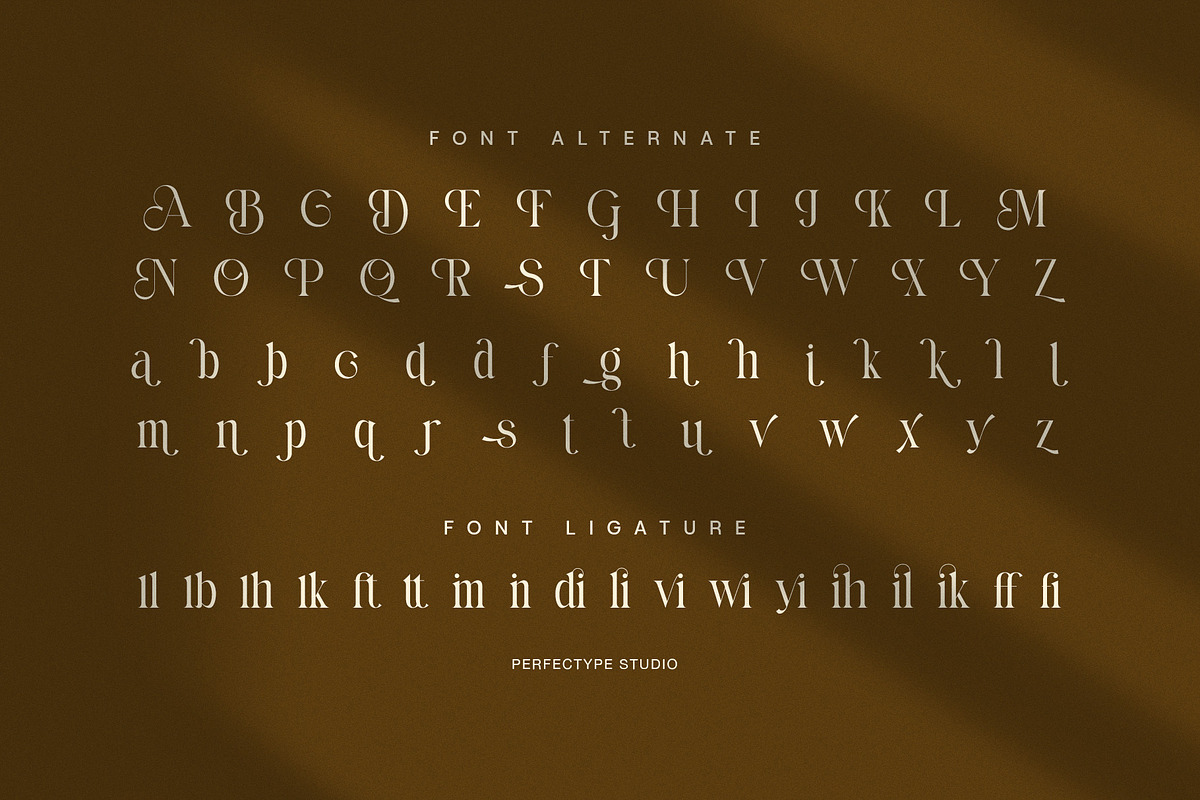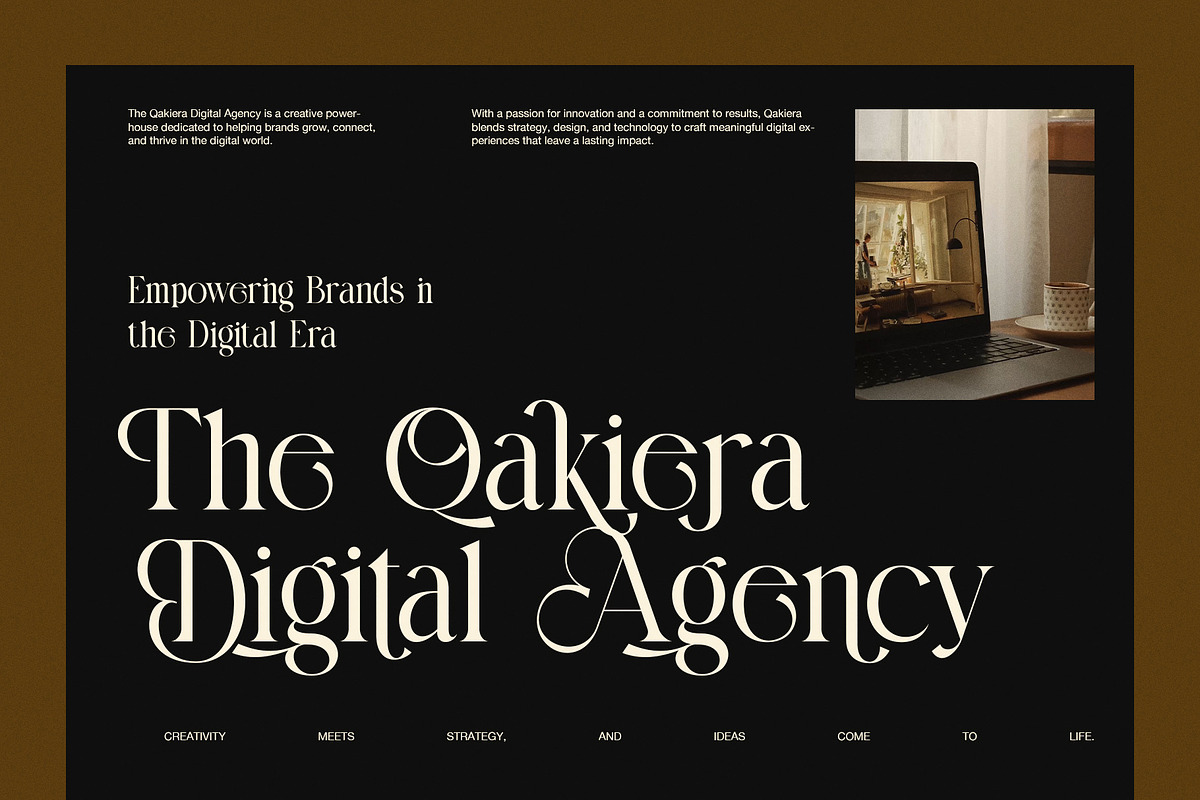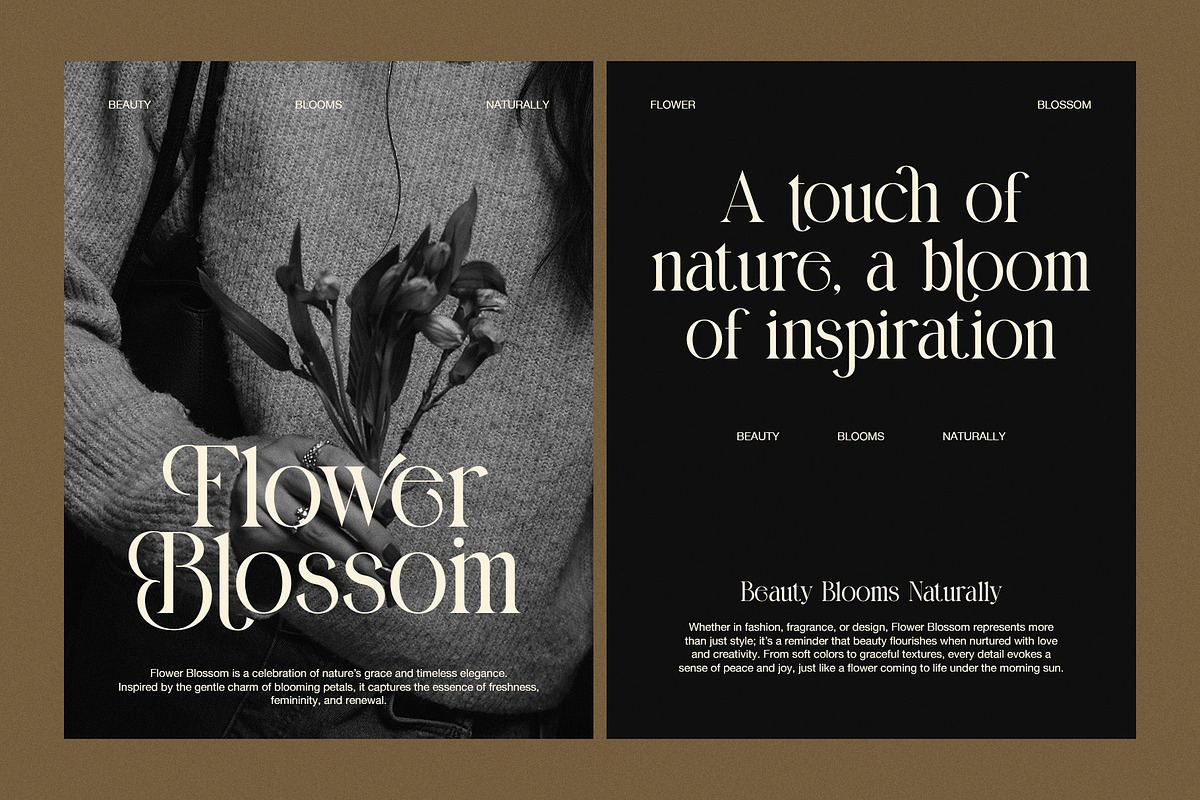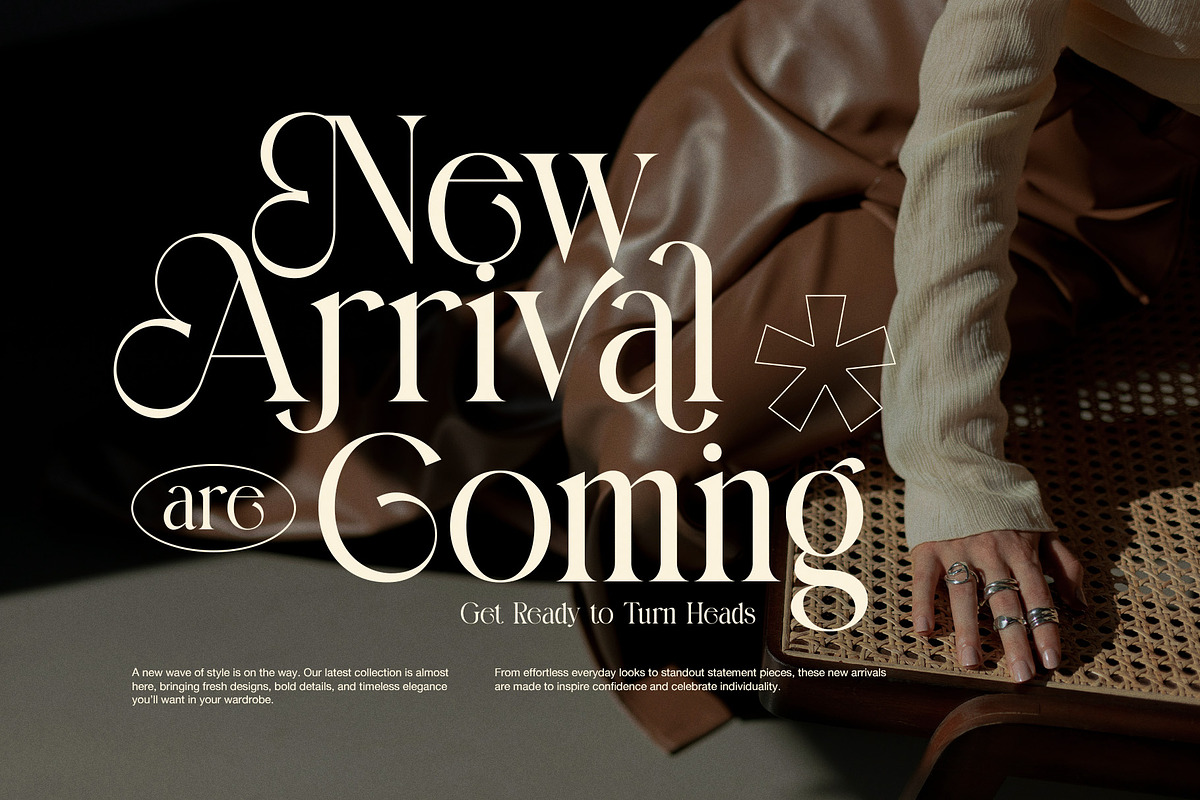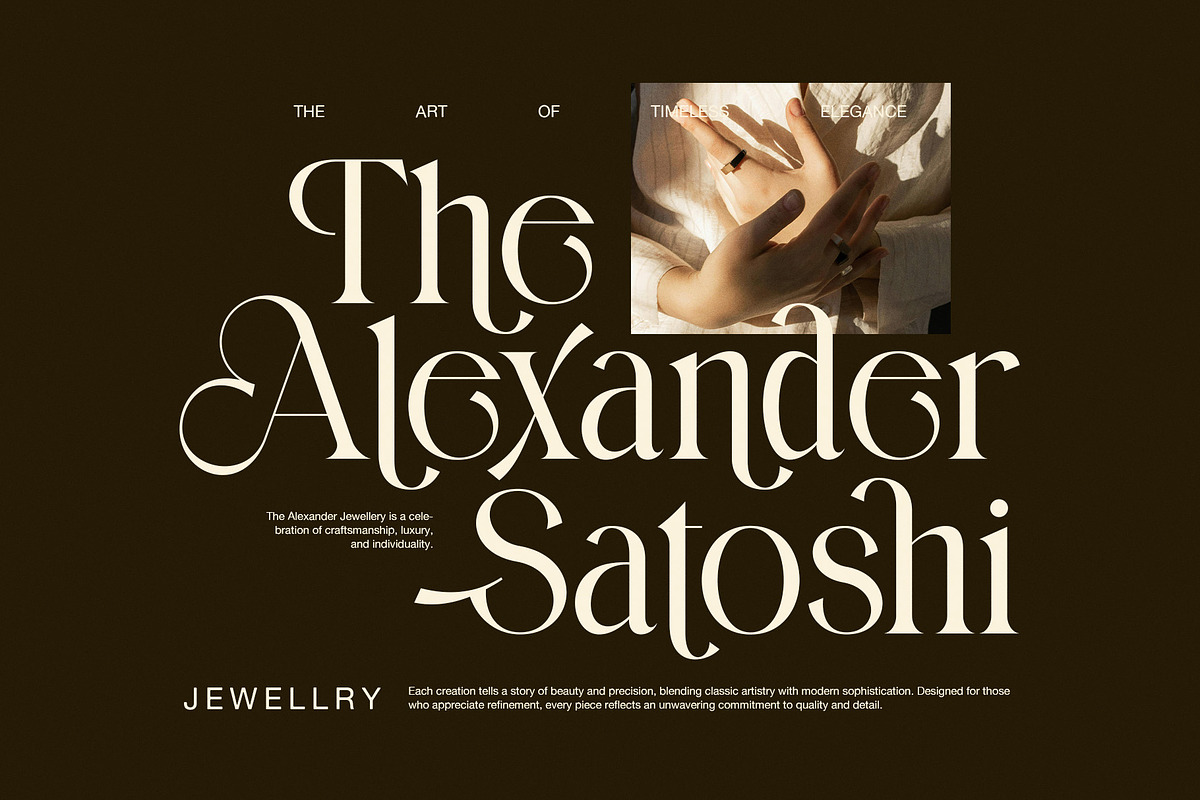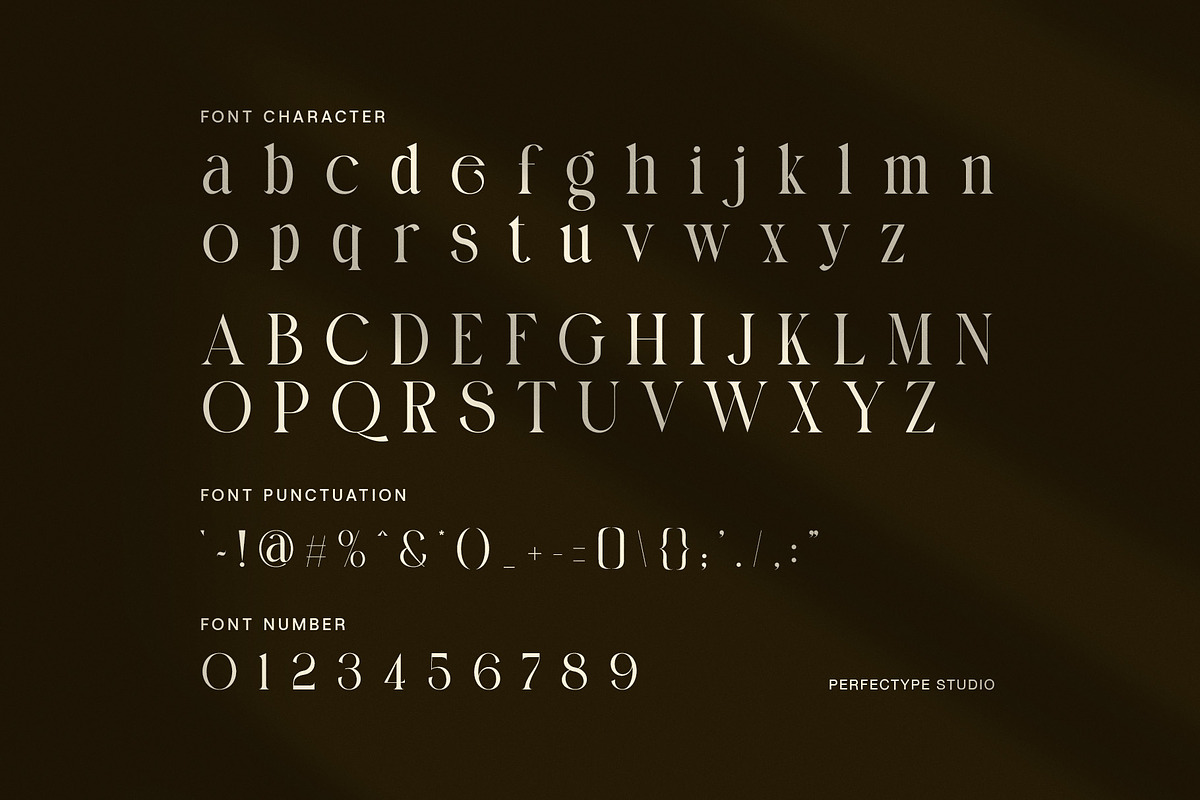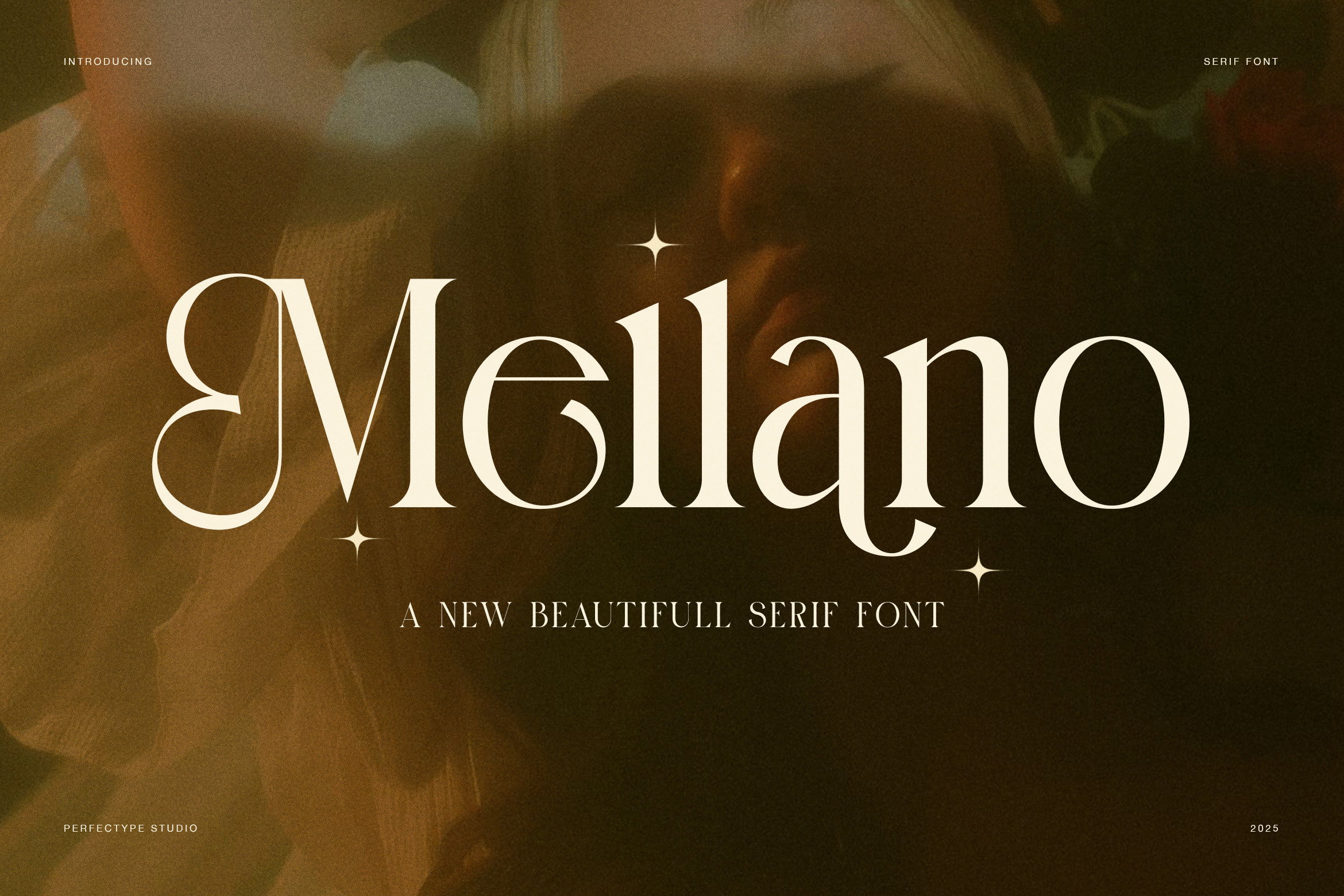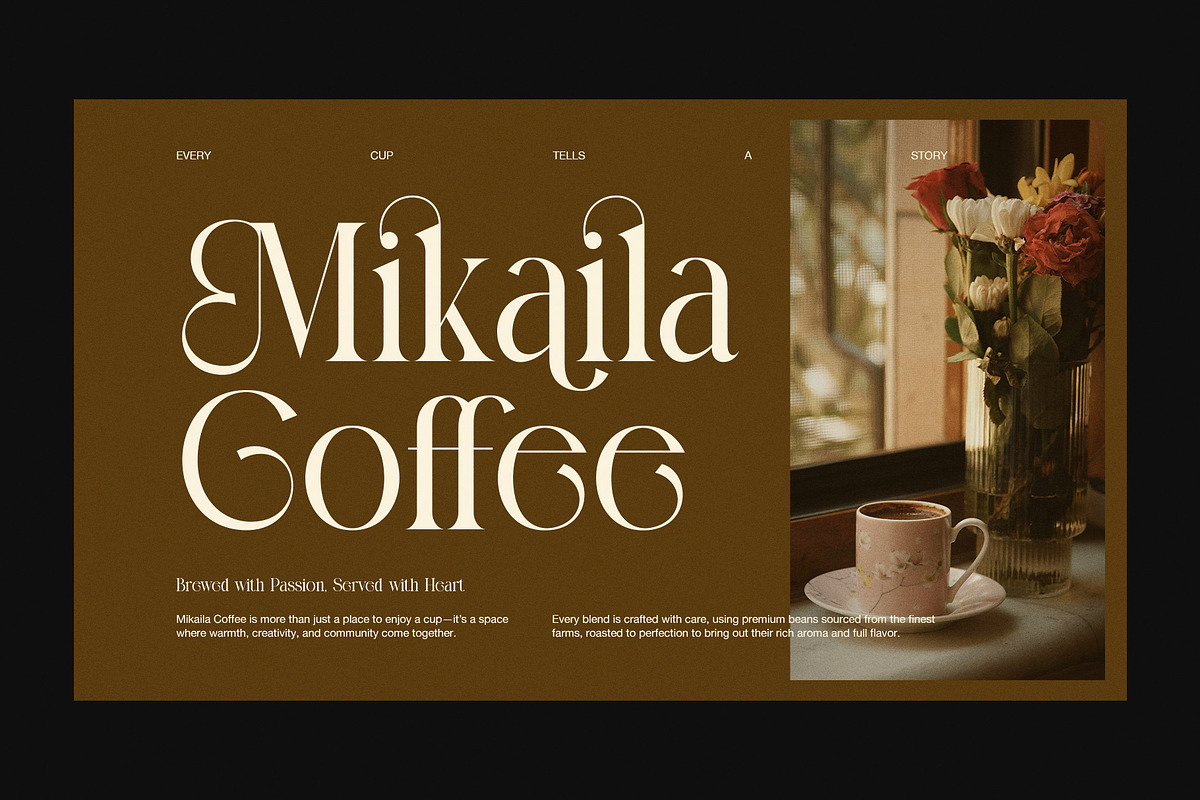
Mellano – Elegant Serif Font
Mellano is an elegant serif font crafted to add timeless style and refined charm to your design work. Each letterform shows balanced proportions, smooth contrast, and graceful details that bring sophistication to any project. The result is a font that feels both classic and modern, perfect for designers who want beauty and function in one typeface.
Moreover, Mellano adapts to many creative needs. Designers can use it for branding, elegant logos, editorial layouts, and premium packaging. Because the letter shapes stay clear and consistent, the font remains highly readable at all sizes. At the same time, its refined shapes create visual impact in titles and headlines.
In addition, Mellano performs well in both print and digital formats. It enhances wedding stationery, boutique branding, fashion graphics, websites, and social media visuals. Designers who value strong typography can combine Mellano with complementary sans serif fonts when they need a balanced type system.
Furthermore, Mellano helps you design with confidence. The font includes uppercase and lowercase letters, numerals, punctuation, and multilingual support. This comprehensive character set lets you create complete text layouts without switching typefaces. Also, optional alternatives and stylistic touches give extra flexibility for custom typography.
Because of its elegant forms and professional structure, Mellano works beautifully across many design scenarios. Use it for business cards, editorial spreads, invitations, labels, and product presentations. Each character reflects thoughtful design that prioritizes harmony and clarity.
✨ Why Choose Mellano Elegant Serif Font?
Elegant and refined serif style
Clean shapes with graceful contrast
Excellent readability for print and web
Perfect for logos and brand identity
Ideal for editorial and headline use
Includes multilingual support and punctuation
Works across wedding, fashion, and luxury design
Overall, Mellano combines timeless elegance with practical performance. If you need an elegant serif font that enhances both style and readability, Mellano gives you a reliable and beautiful design choice that elevates your work.